Urdu, as the national language of Pakistan, plays an important role in the country’s literature and culture. With technology evolving, Urdu is no longer just for literature and calligraphy; it’s now a big part of the media industry across Pakistan. From movie posters to music videos and fashion design, Urdu fonts in pop culture help the local audience connect more deeply with songs, movies, and other entertainment media. Moreover, it helps to create a sense of association with the viewers when they see their mother tongue displayed on their everyday products and brands.
Derived from the Persian script, Urdu script increases the visual appeal and uniqueness of Urdu literature. You can use different font styles and Urdu typography, for writing engaging lyrics or captions in your music videos to capture the attention of your viewers. Not just this, even in movie posters, you can use them to write attractive taglines or titles. Also, the fashion industry is such a diverse domain in which these fonts play a crucial role whether in posters, magazines, reels, and much more. You can also learn about Urdu Fonts for TikTok to create engaging content.
In pop culture, different types of Urdu fonts are utilized to show different styles, moods, and cultural distinctions. Due to a wide range of Urdu fonts available today in the market, you will have so many choices to select one according to your requirements. Different types of Urdu font styles like Nastaliq, Digital or Tech Urdu Fonts, Cartoon-style fonts are commonly part of pop culture. Below, you can learn their impact and use in our media culture.
| Categories | Use and Impact |
|---|---|
| Naskh | Can be Used in in printed materials like magazines, books, newspapers, where legibility and simplicity is needed. |
| Nastaliq | Popular for its aesthetic slanted visual, therefore, used for in attractive headings, posters, art, and album covers. |
| Thuluth | An elegant and bold style of calligraphy, Thuluth is frequently used in decorative elements like signage, logos, and titles in movies and music videos. |
| Diwani | Commonly used in branding, logo designs, and art posters in pop culture and adds a touch of luxury and sophistication to the visuals. |
| Kufic | Its geometric shapes provide a unique and timeless appearance to typography especially in jewelry, fashion, and tattoo designs. |
| Digital Fonts | In pop culture, they are used to give an innovative or retro vibe. You can use them in digital art, video game graphics, as well as multimedia installations involving Urdu text. |
| Handwritten Fonts | Used in memes, kids products, social media graphics, and digital content creation to deliver authenticity and freedom. |
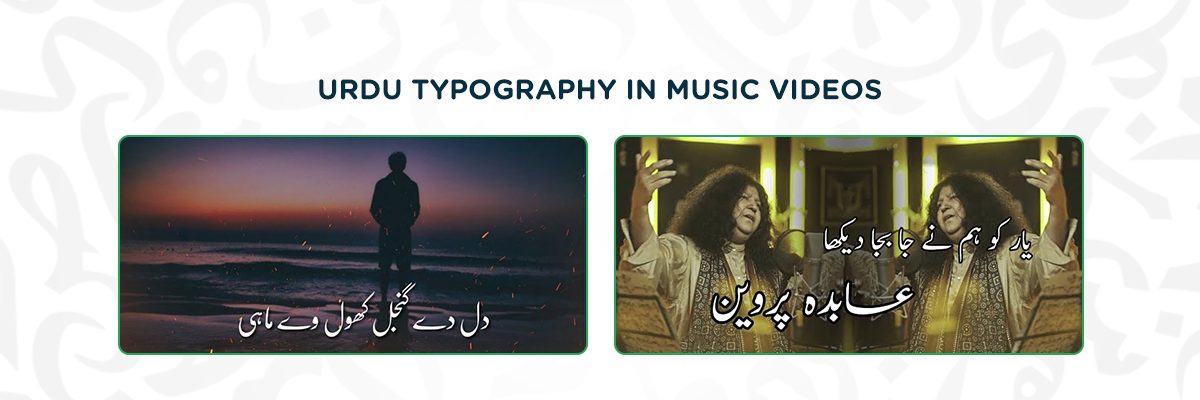
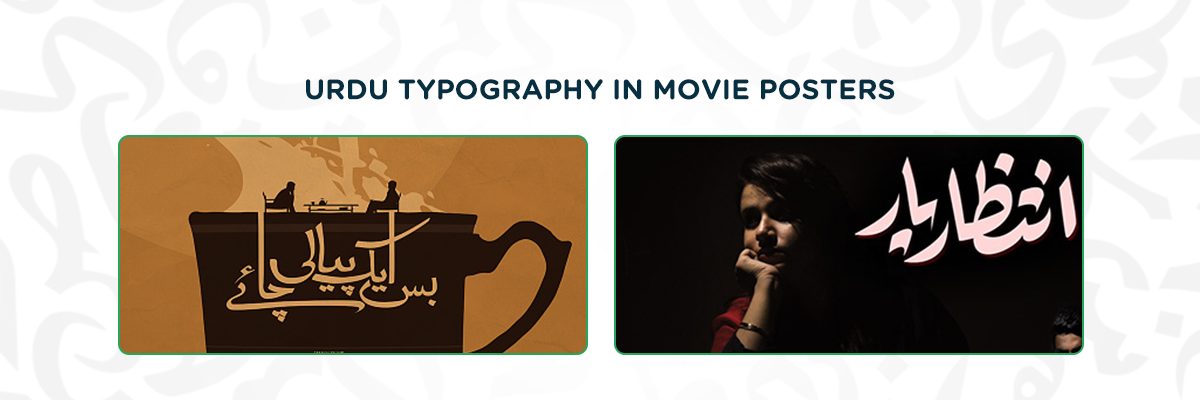
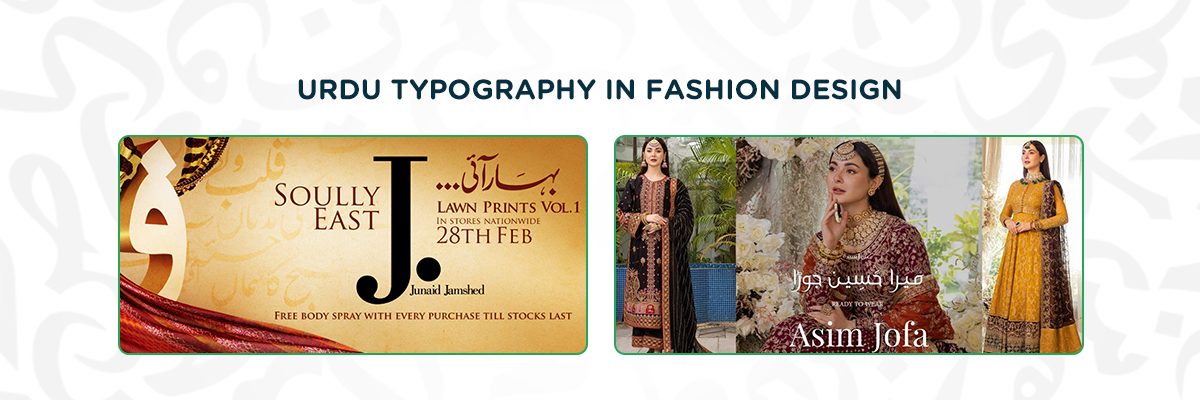
Urdu plays the role of a uniting force in Pakistan, connecting different cultural and traditional backgrounds. Popular Urdu scripts such as Naskh, Nastaliq, and even Arabic scripts like Kufic and Diwani are now a part of our culture. Designers are using them in a variety of ways in pop culture, for example, in film posters, music videos, and even in fashion designing industry. One can never ignore the importance of Urdu typography in pop culture. Above, we have discussed in detail about how we can add Urdu fonts in out routinely artworks to improve its visual appearance and to add a cultural factor to our projects.